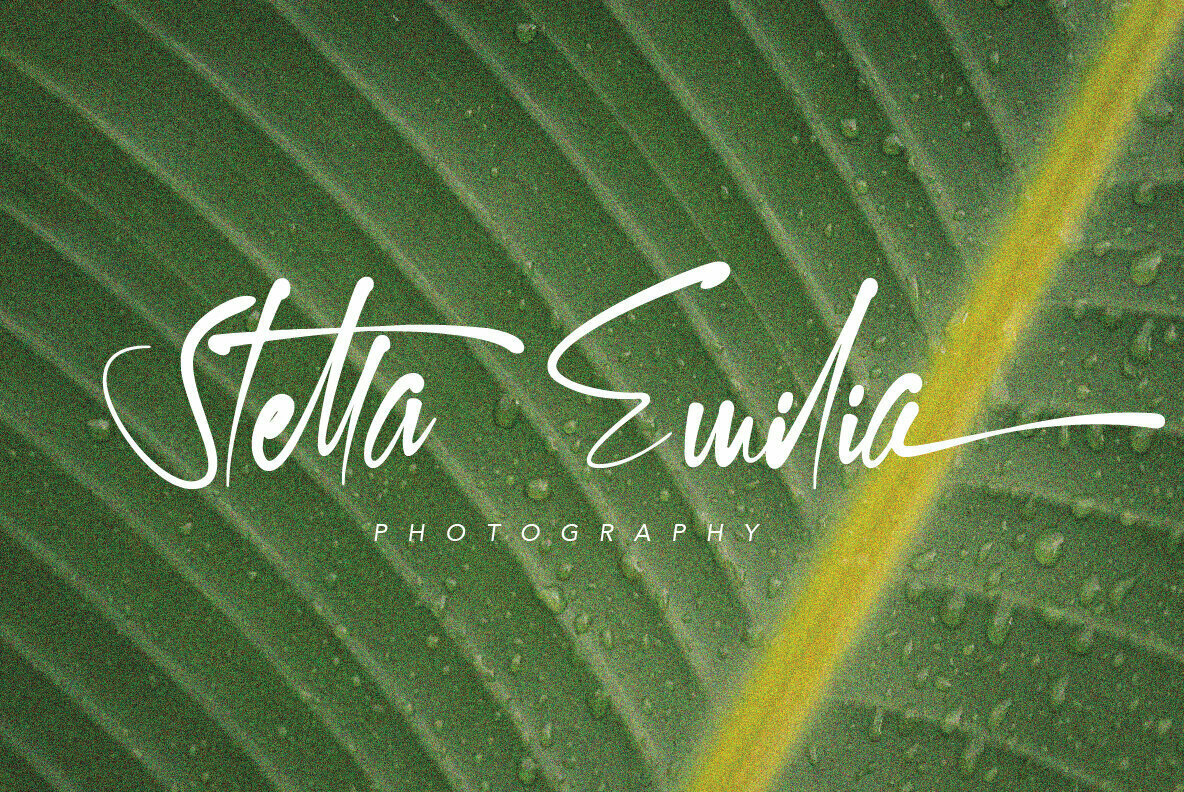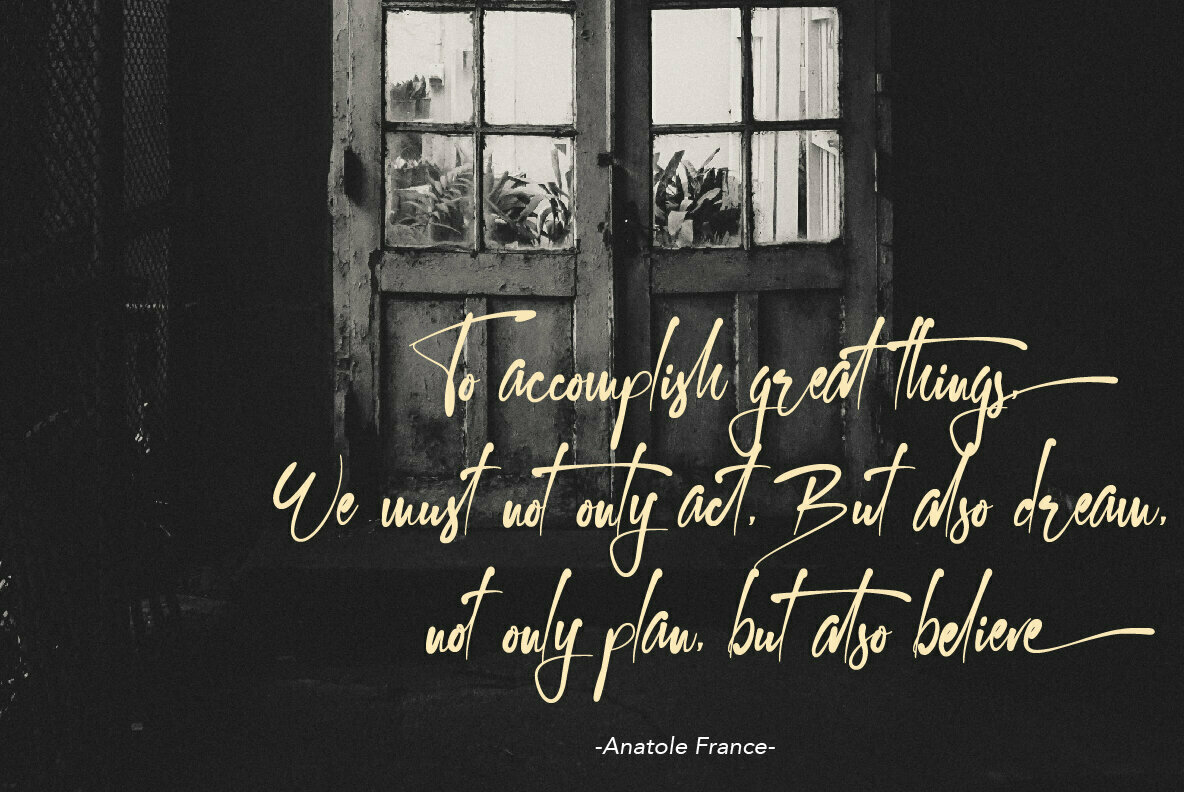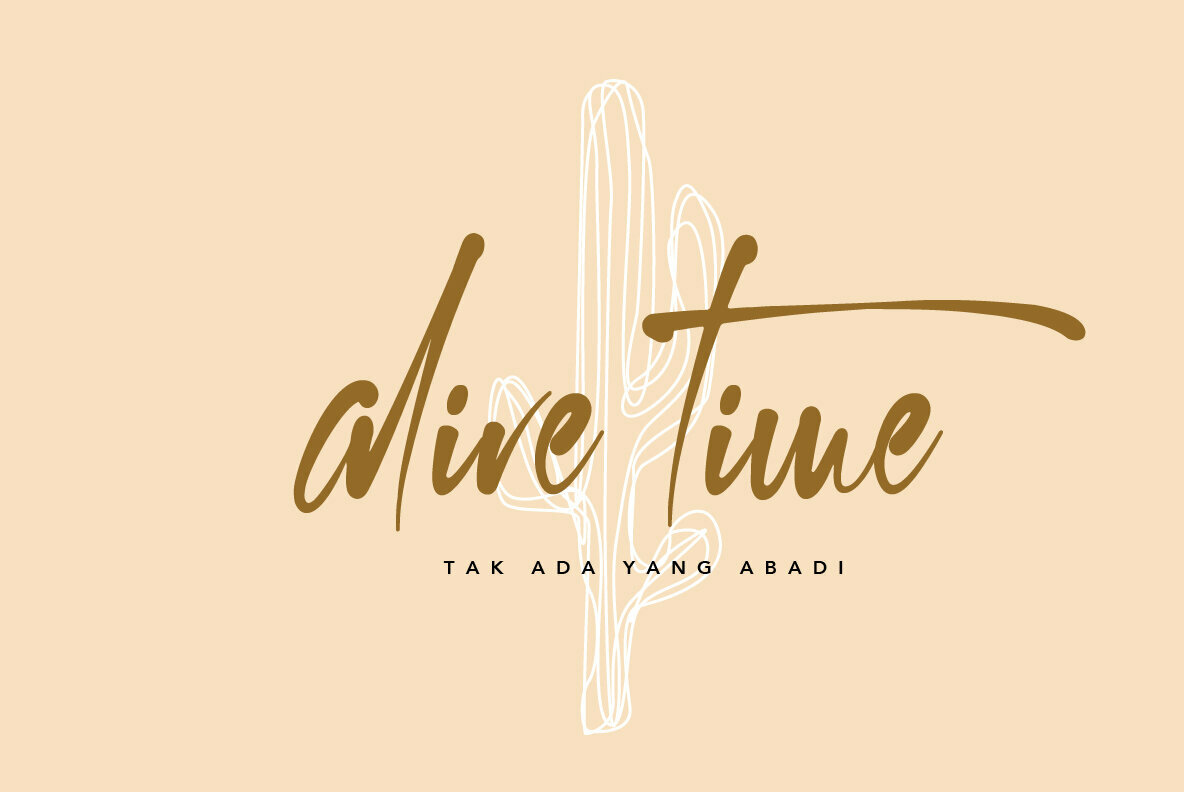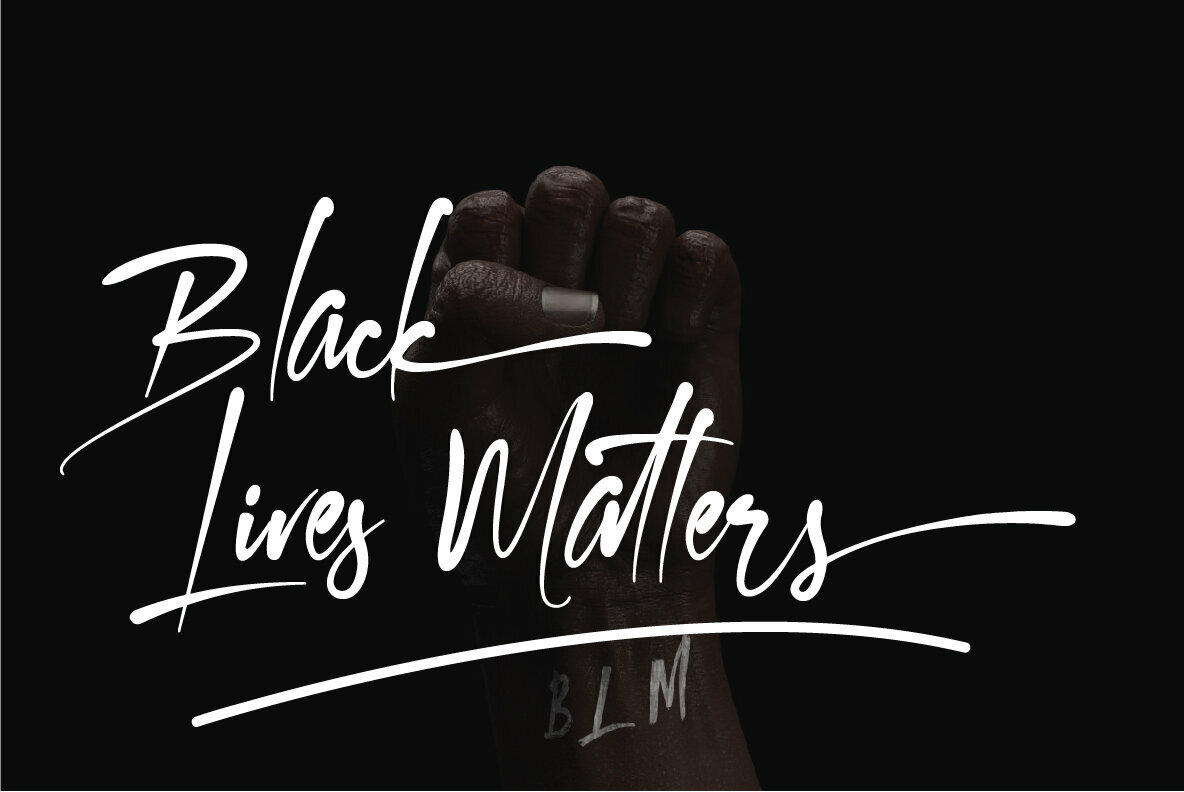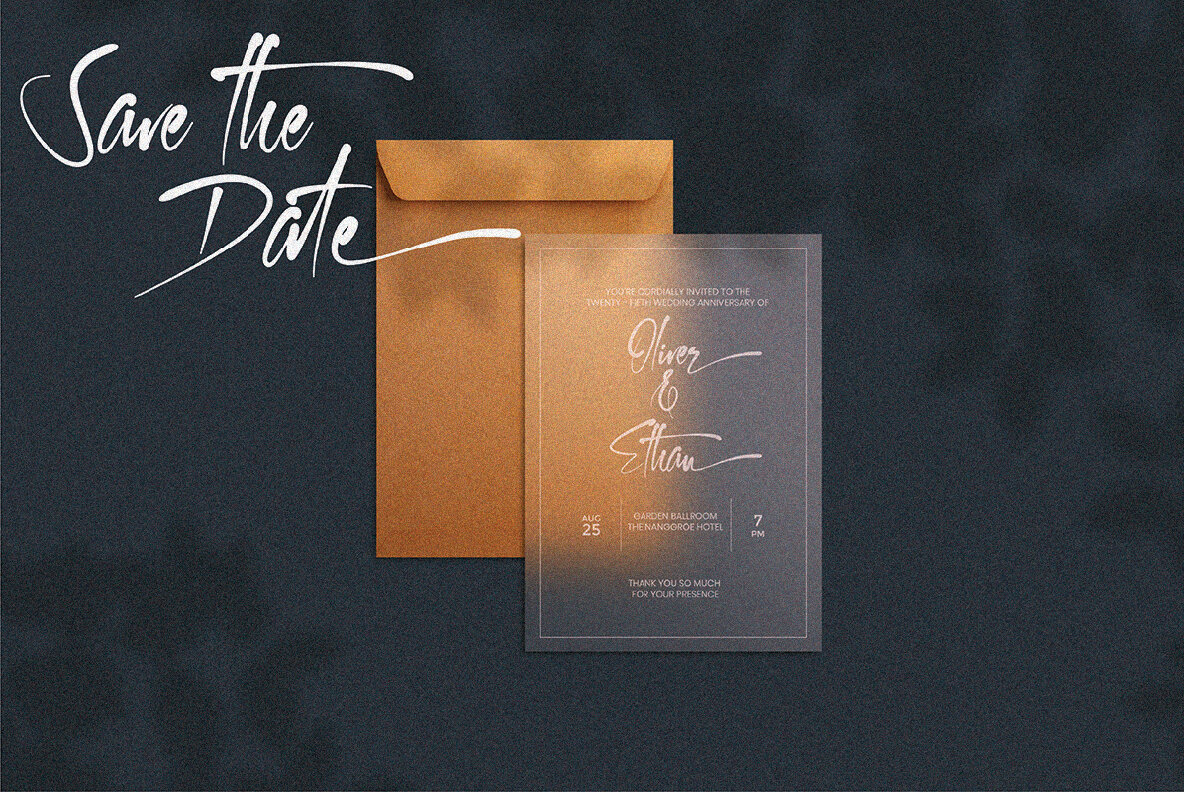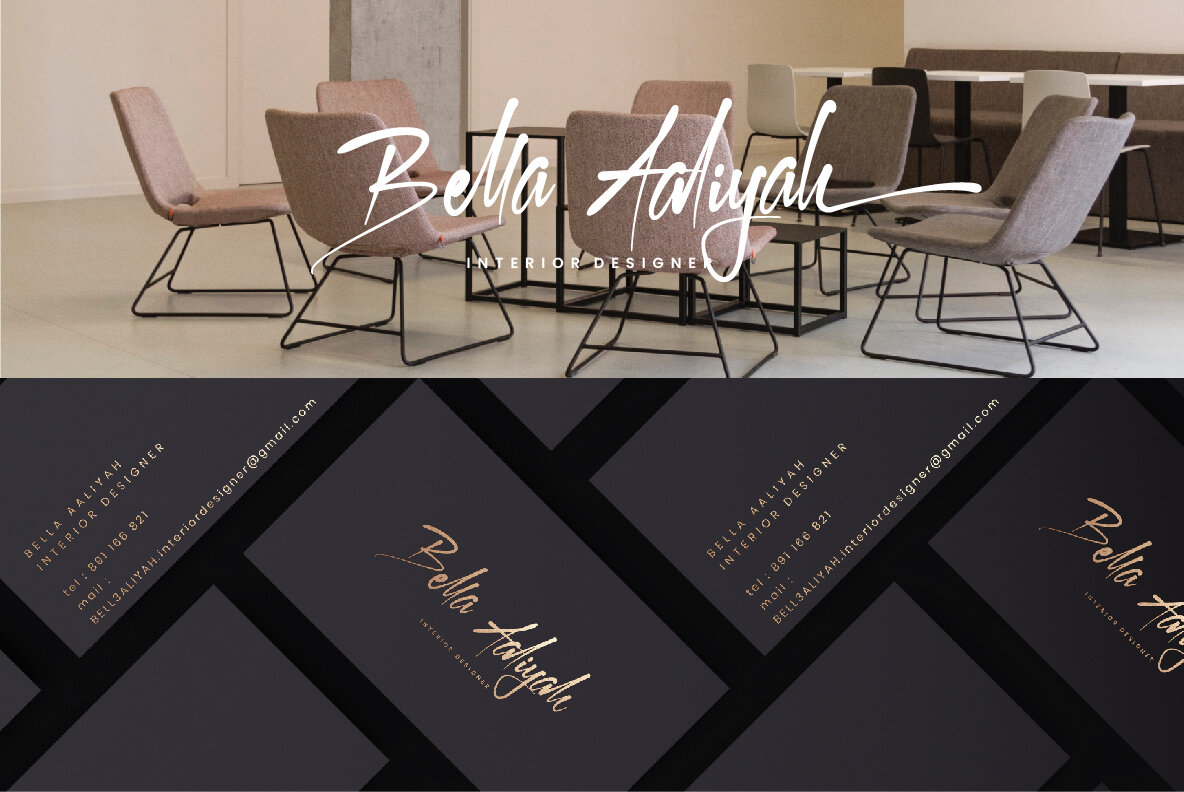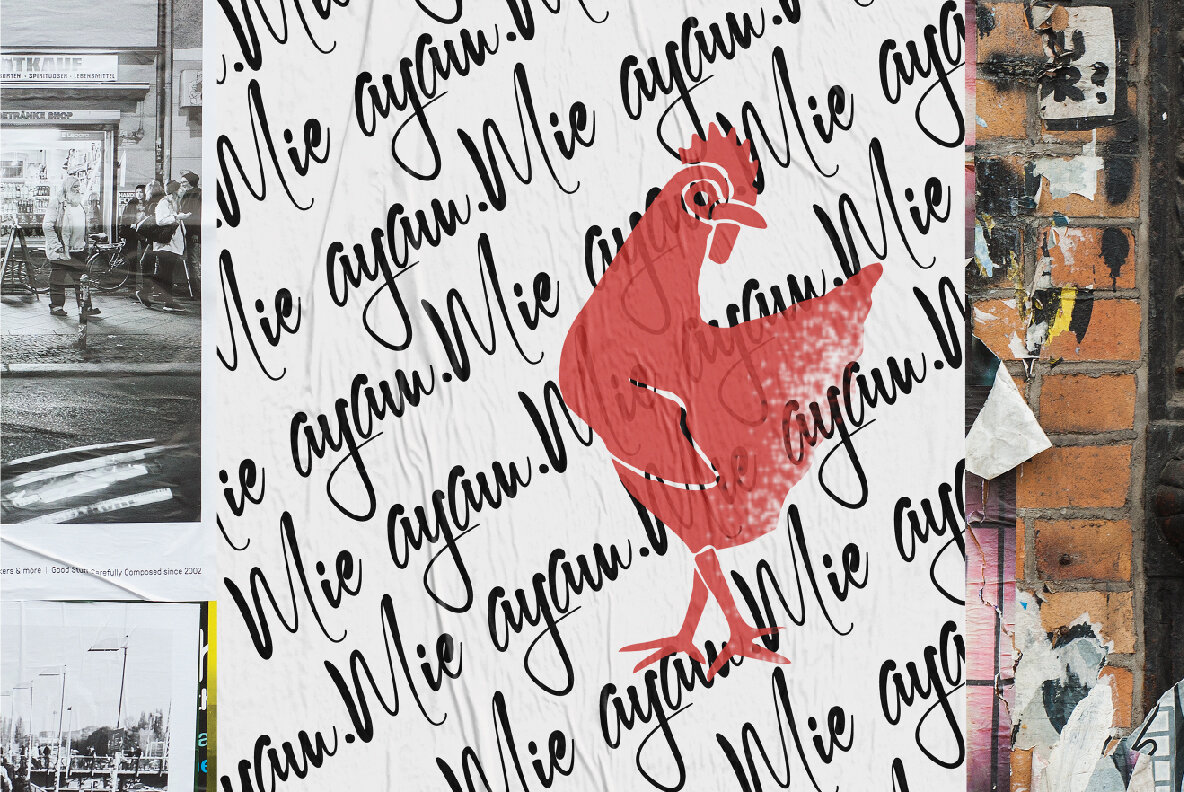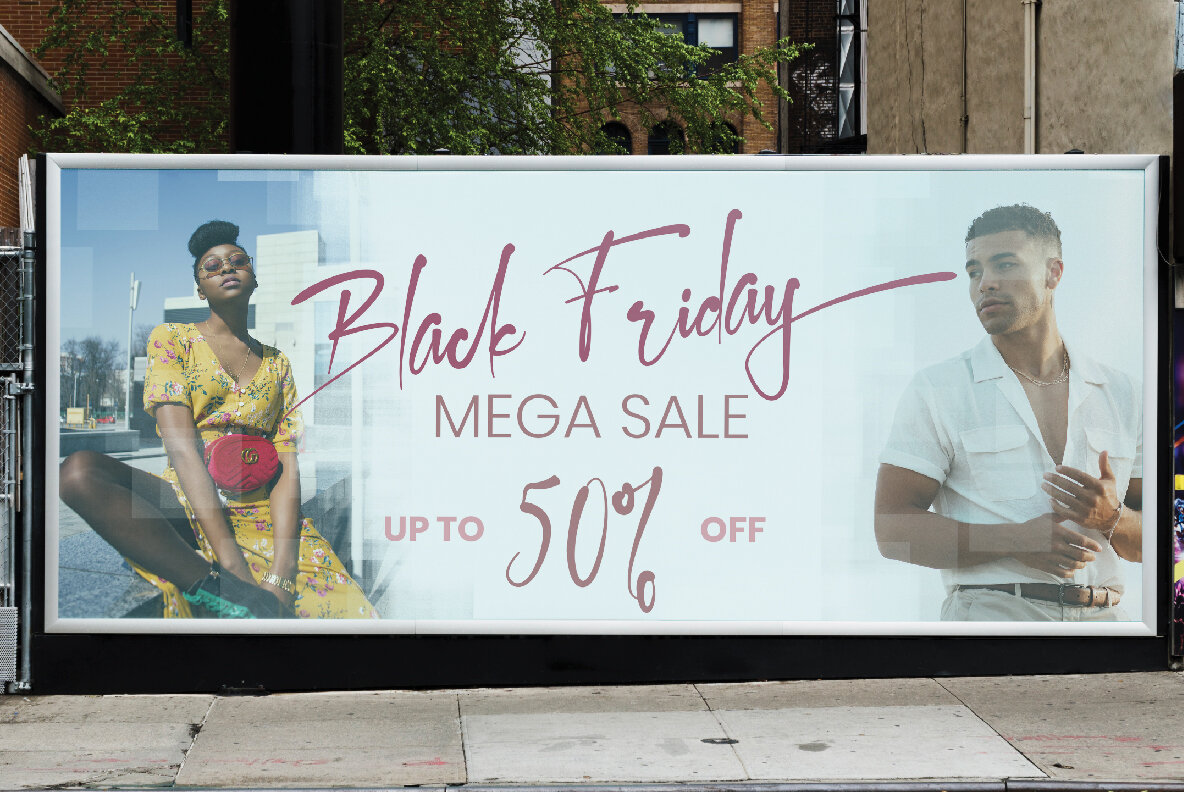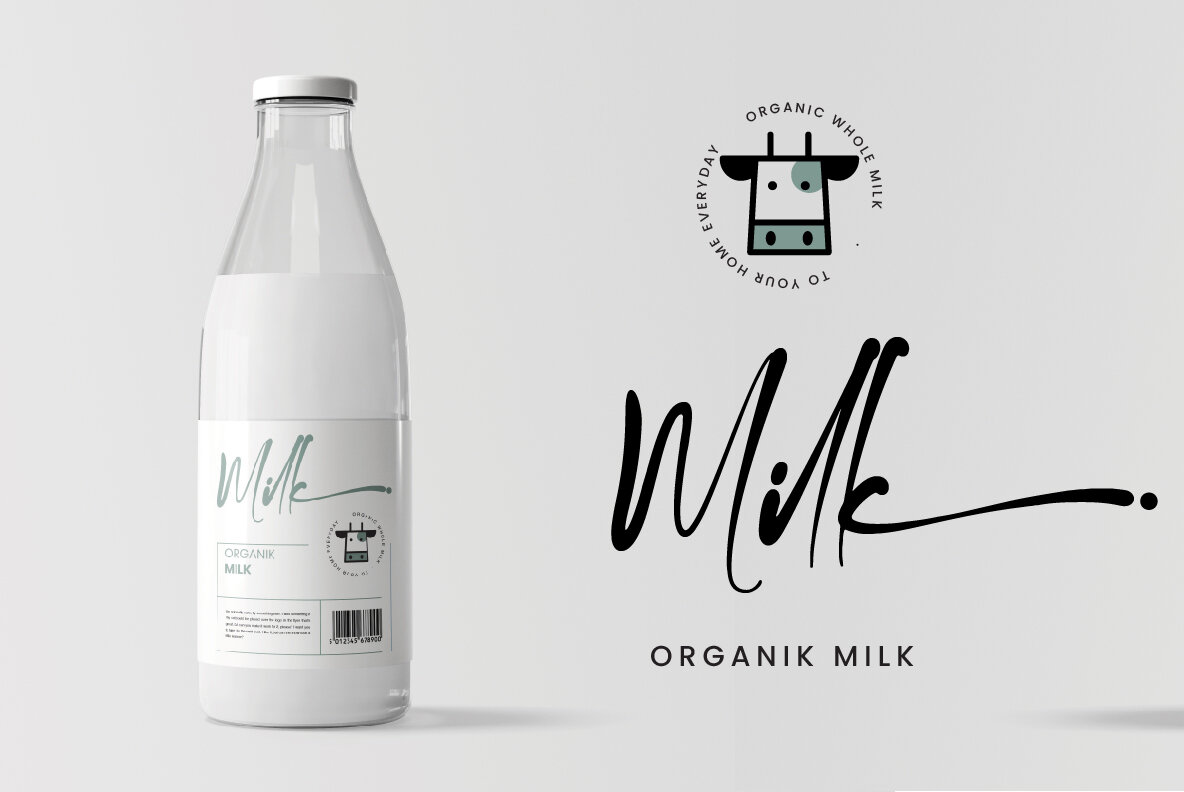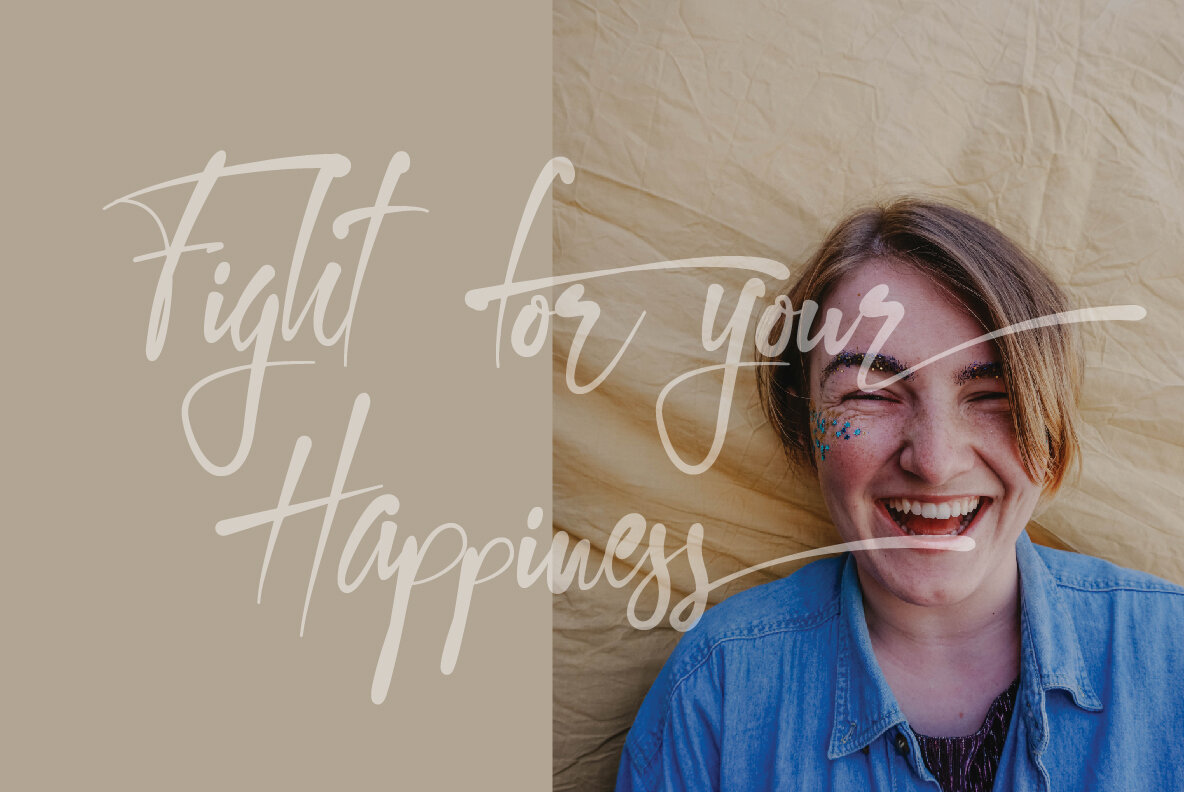
Kallem Font
Kallem
Kallem offers an artful interpretation of modern calligraphy, infused with elegant pressure strokes. Embrace its charm for crafting sophisticated signature logos or delicate watermarks, making it ideal for photography studios or wedding invitations. Additionally, Kallem complements initial designs and branding logo signatures with its sleek appeal.Kallem: Modern Calligraphy With Exquisite Style